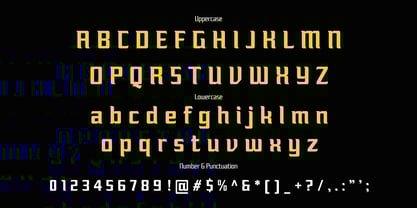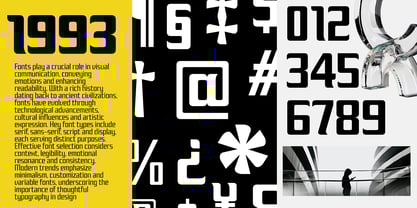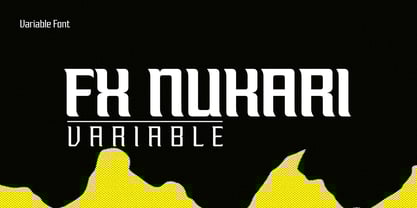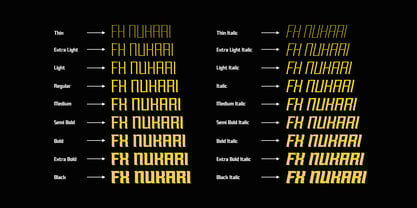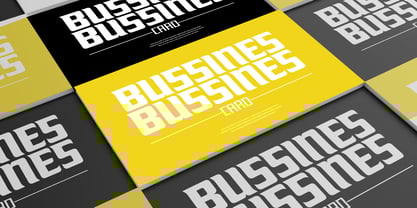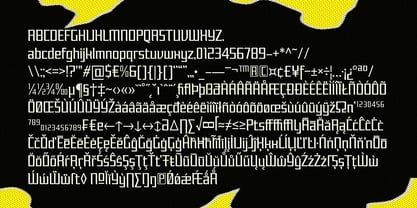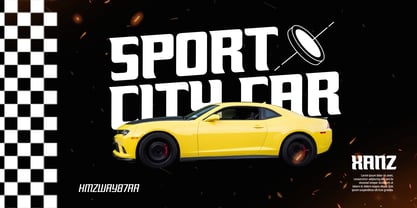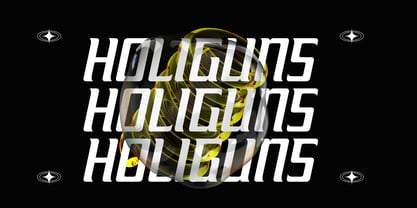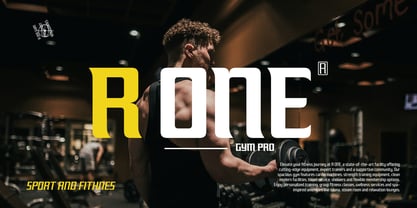
FX Nukari Variable
The FX Nukari Variable Font Family was designed by Sidik Sidik and published by Differentialtype. FX Nukari Variable contains 1 styles. More about this family
Immerse in the extraordinary allure of FX Nukari Variable, an innovative displaying font lineage. Featuring an extensive palette of variable font styles, this expressive typographic tool offers abundant versatility and diversity for your designs. FX Nukari variable is the perfect choice for myriad applications, from crafting crystal clear documents, creating captivating news headlines, designing remarkable logo signatures, to emboldening product branding and beyond. Welcome FX Nukari Variable into your font repertoire and let its distinct brilliance transform and elevate your design narratives.